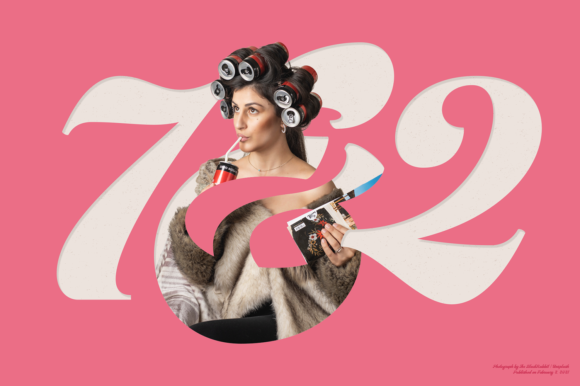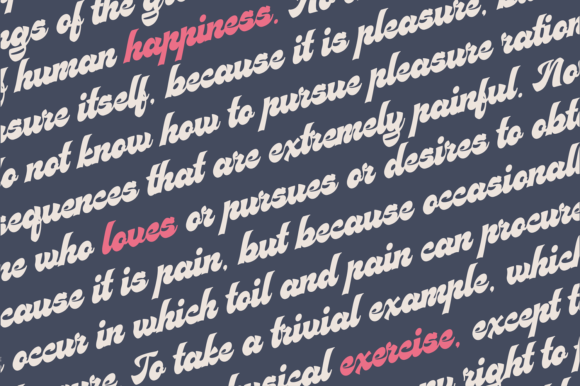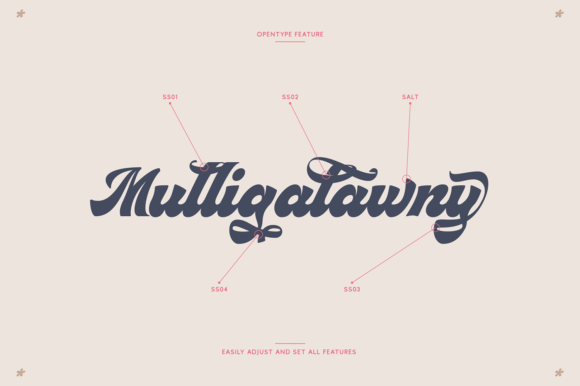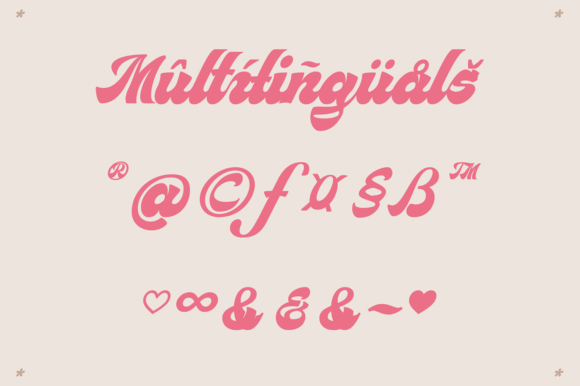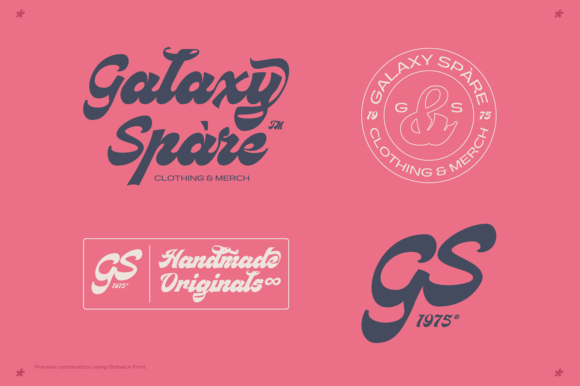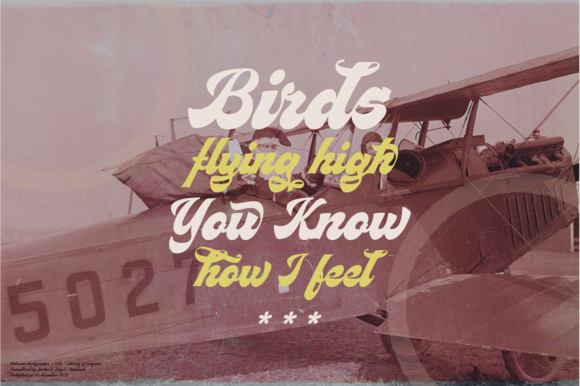
Introducing Estefania Font: A Retro and Bold Handwritten Style
Are you looking for a font that adds a touch of nostalgia to your designs? Look no further than Estefania Font, a retro and bold styled handwritten font that’s sure to make your projects stand out. With its assertive and contrast strokes, Estefania Font is the perfect choice for designers and crafters who want to add a unique and eye-catching element to their work.
The Characteristics of Estefania Font
Estefania Font is a carefully crafted handwritten font that features bold and expressive lettering. Its retro style is reminiscent of classic typography from the past, but with a modern twist that makes it perfect for contemporary designs. The font’s assertive and contrast strokes give it a dynamic and energetic feel, making it perfect for headlines, titles, and other design elements that need to grab attention.
What Makes Estefania Font So Special?
So, what sets Estefania Font apart from other fonts? Here are just a few reasons why this font is a must-have for designers and crafters:
- Unique and eye-catching design: Estefania Font’s bold and expressive lettering makes it perfect for designs that need to stand out from the crowd.
- Retro style with a modern twist: The font’s classic look is updated with modern sensibilities, making it perfect for both vintage and contemporary designs.
- Assertive and contrast strokes: The font’s dynamic strokes add energy and movement to your designs, making them more engaging and attention-grabbing.
- Smooth and legible: Despite its bold style, Estefania Font is surprisingly smooth and legible, making it perfect for use in a variety of design applications.
How to Use Estefania Font in Your Designs
Estefania Font is a versatile font that can be used in a wide range of design applications, from branding and advertising to crafting and scrapbooking. Here are just a few ideas for using Estefania Font in your designs:
- Headlines and titles: Use Estefania Font to add a bold and eye-catching element to your headlines and titles.
- Branding and logos: The font’s unique and memorable design makes it perfect for use in branding and logos.
- Signs and posters: Estefania Font is a great choice for signs and posters that need to grab attention and make a statement.
- Crafting and scrapbooking: The font’s retro style and smooth lettering make it perfect for use in crafting and scrapbooking projects.
Tips for Getting the Most Out of Estefania Font
Here are a few tips for getting the most out of Estefania Font:
- Experiment with different colors: Estefania Font looks great in a variety of colors, so don’t be afraid to experiment and find the perfect hue for your design.
- Play with font sizes: The font’s bold style looks great at a range of font sizes, from large headlines to smaller body text.
- Combine with other fonts: Estefania Font pairs well with a variety of other fonts, so feel free to get creative and experiment with different font combinations.
Estefania Font is a unique and eye-catching handwritten font that’s perfect for designers and crafters who want to add a touch of nostalgia to their designs. With its bold and expressive lettering, assertive and contrast strokes, and smooth and legible design, Estefania Font is the perfect choice for a wide range of design applications. Whether you’re looking to create a bold headline, a memorable logo, or a beautiful scrapbooking page, Estefania Font is sure to make your designs stand out.